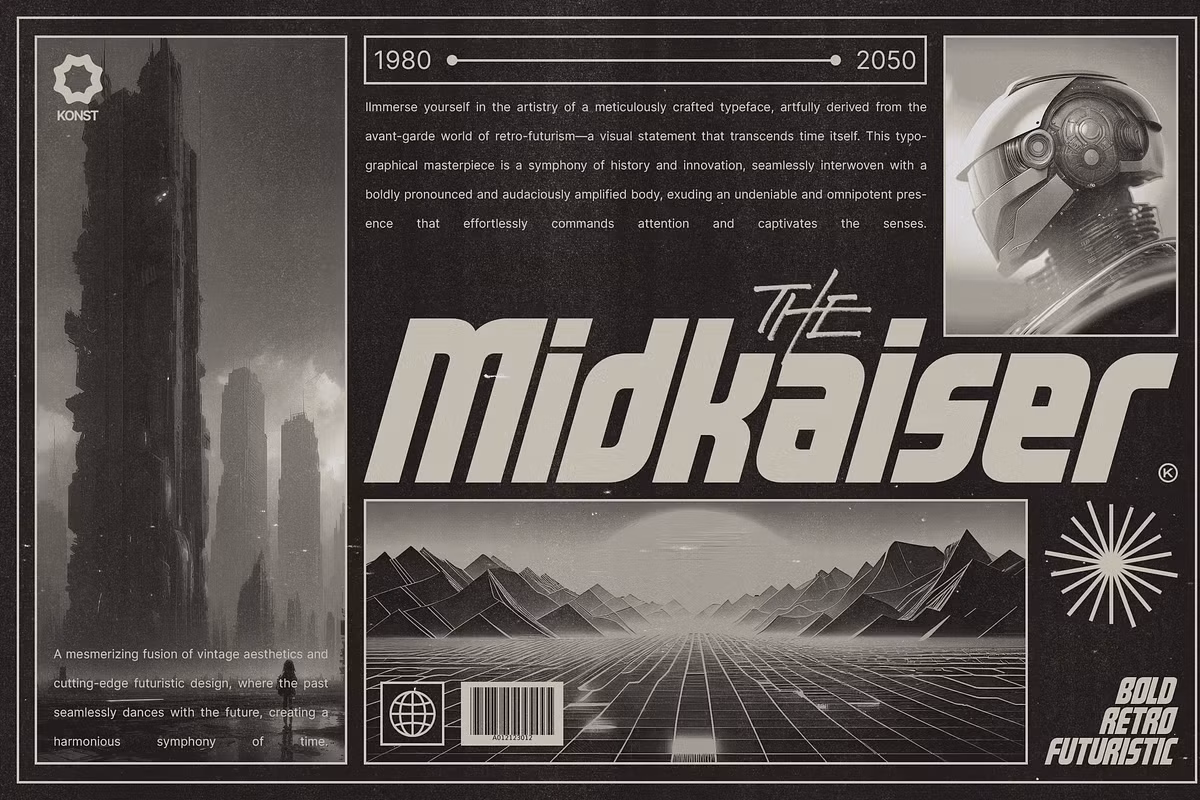
Midkaiser – Bold Futuristic Font Free Download
Midkaiser – Bold Futuristic Font Free Download is a striking, bold typeface designed with a modern and futuristic edge. Featuring sharp angles and geometric shapes, this font is perfect for technology branding, sci-fi posters, gaming graphics, and any design project that requires a sleek, cutting-edge look.
Midkaiser’s bold presence and clean, sharp lines make it ideal for high-impact titles, logos, and anything that needs to make a statement. Whether you’re working on a sci-fi movie poster or a tech product launch, this font brings a modern and powerful visual appeal to your project.